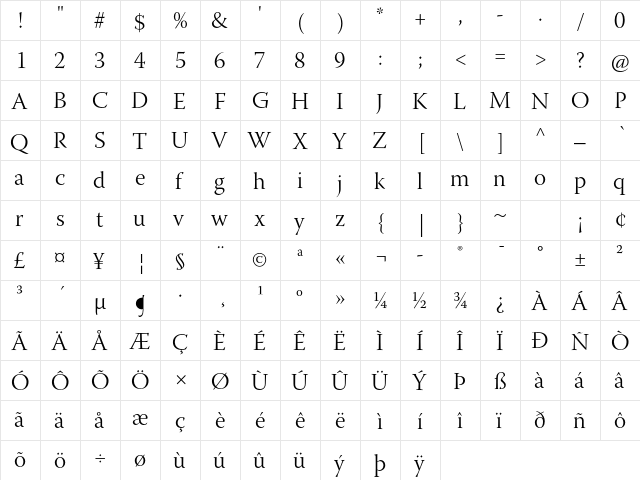
Warnock Pro Light Subhead
| Designer | Robert Slimbach |
Design Context for Warnock Pro Typeface
Warnock Pro is a composed and adaptable typeface that performs quietly and consistently across a wide range of design contexts. The delicate stroke weight brings airiness and refinement to layouts.